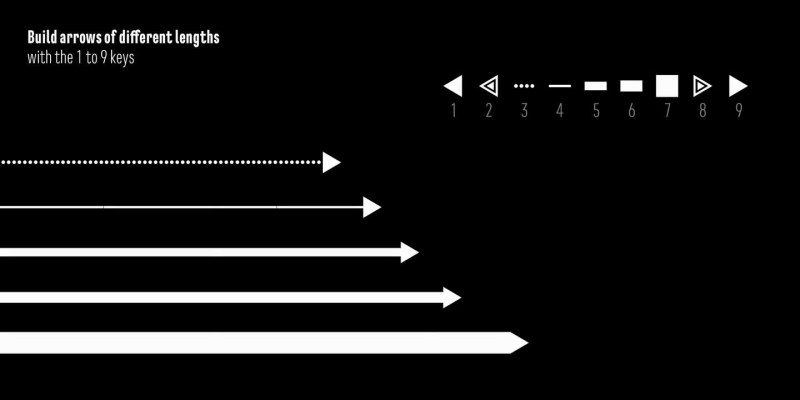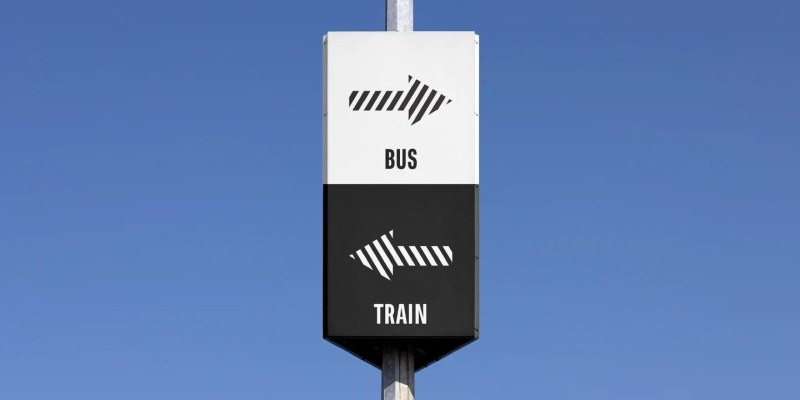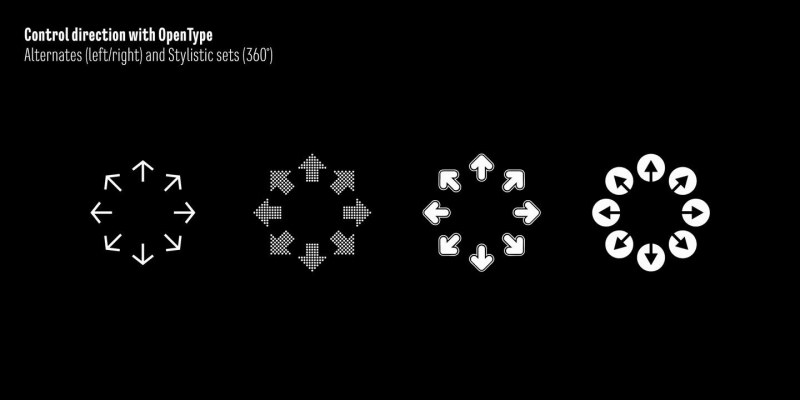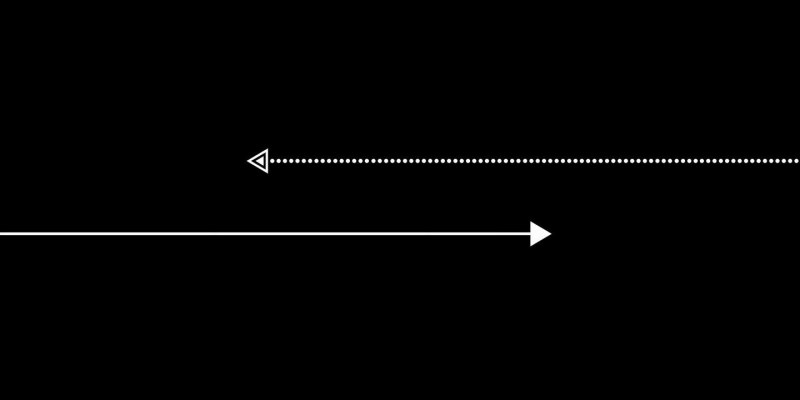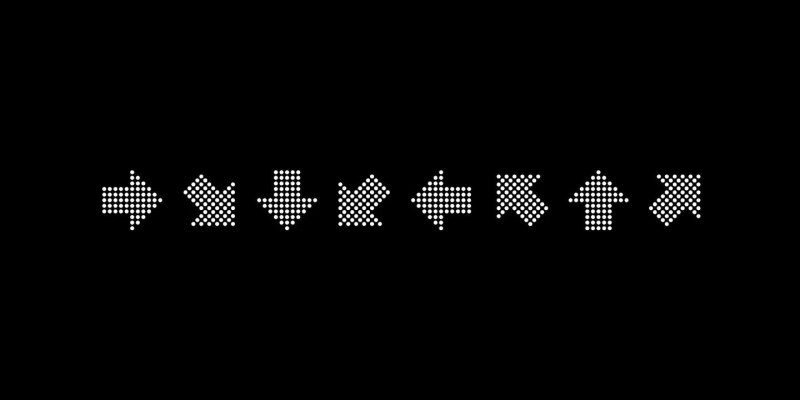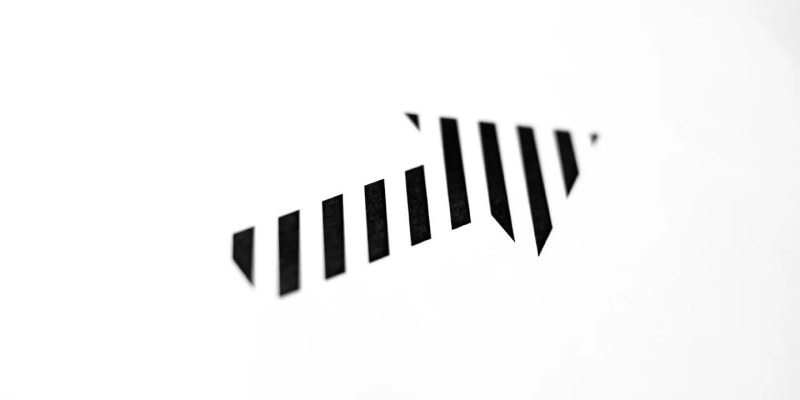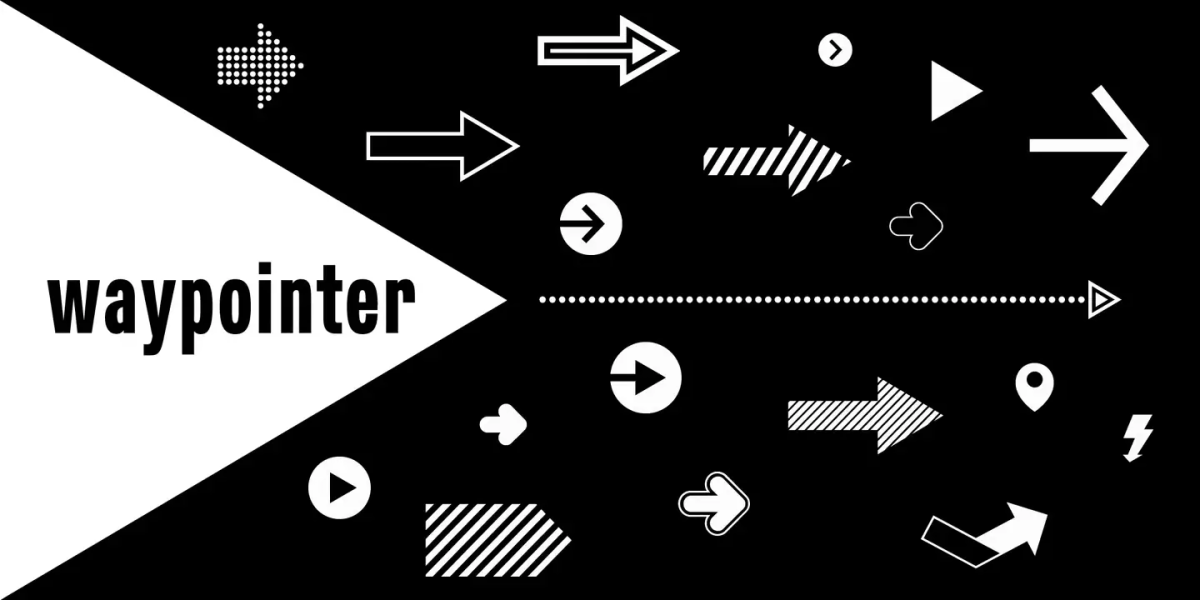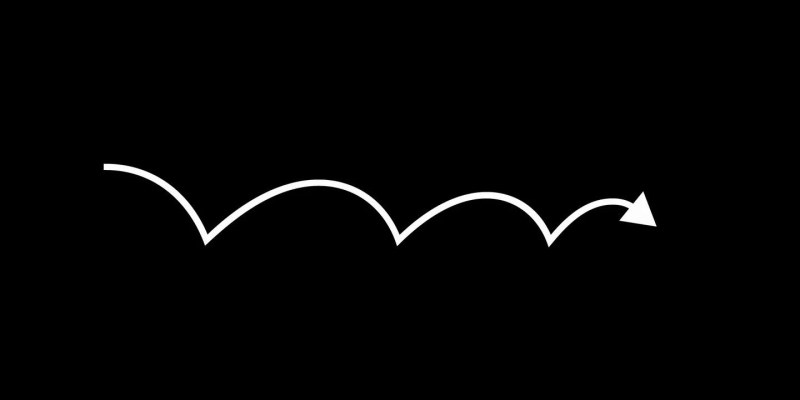
Waypointer Font
Waypointer is a font that can be used to indicate direction or emphasis in documents, signage, or websites. It is easy to use because its size matches the standard cap height of most fonts. The arrows are accessed with the standard keyboard keys. Make your own arrow of any length with the 1 to 9 keys. Use uppercase (A to Z) and lowercase (a to z) for pre-made arrows that point right, left, up, or down. Those who use OpenType will find useful features, such as stylistic sets for changing arrow directions in 360 degree angles and stylistic alternates for quick changes between pointing right and left. It has a few extras such as a map pin, anchor, and lightning bolt. These are included and accessed with the comma, period, and zero key.
Where Waypointer Font works best
Waypointer Font is built for size: event posters, hero headlines and billboard-style layouts.
High contrast display type like Waypointer Font reads instantly in thumbnails and motion graphics.
What is Waypointer Font good for?